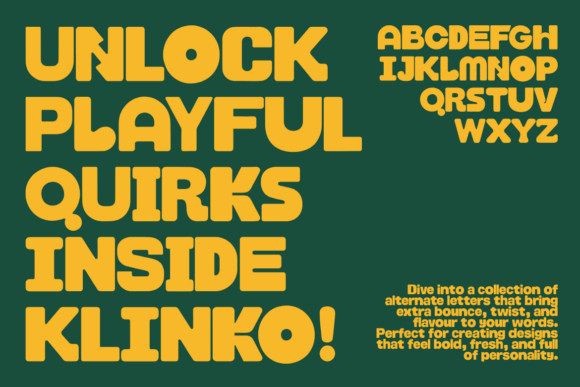
Klinko Font
Klinko is a bold, modular display font that blends retro playfulness with a touch of industrial charm. Designed with ultra-thick strokes, rounded edges, and stencil-inspired cuts, Klinko captures the spirit of 1970s pop culture while staying versatile for modern designs.Each letter is crafted with a geometric balance, featuring soft curves and compact counter spaces that give the font a bubbly, energetic personality. Whether you’re designing eye-catching posters, playful packaging, retro branding, or bold social media graphics, Klinko adds a vibrant, nostalgic feel without losing its clean, structured form.Klinko comes with a collection of stylistic alternates and playful ligatures, allowing you to customize your typography and create dynamic layouts effortlessly.✍️ Features Uppercase Letters A–Z Numbers 0–9 Basic Punctuation Fun Ligatures Stylistic Alternates Multilingual Support (Basic Latin + Extended Latin) 🎯 Perfect For Retro branding Food & beverage packaging Children’s products Creative posters Vintage-inspired editorial design Social media graphics Bring a bold and quirky personality to your designs with Klinko, where playful curves meet modular precision.